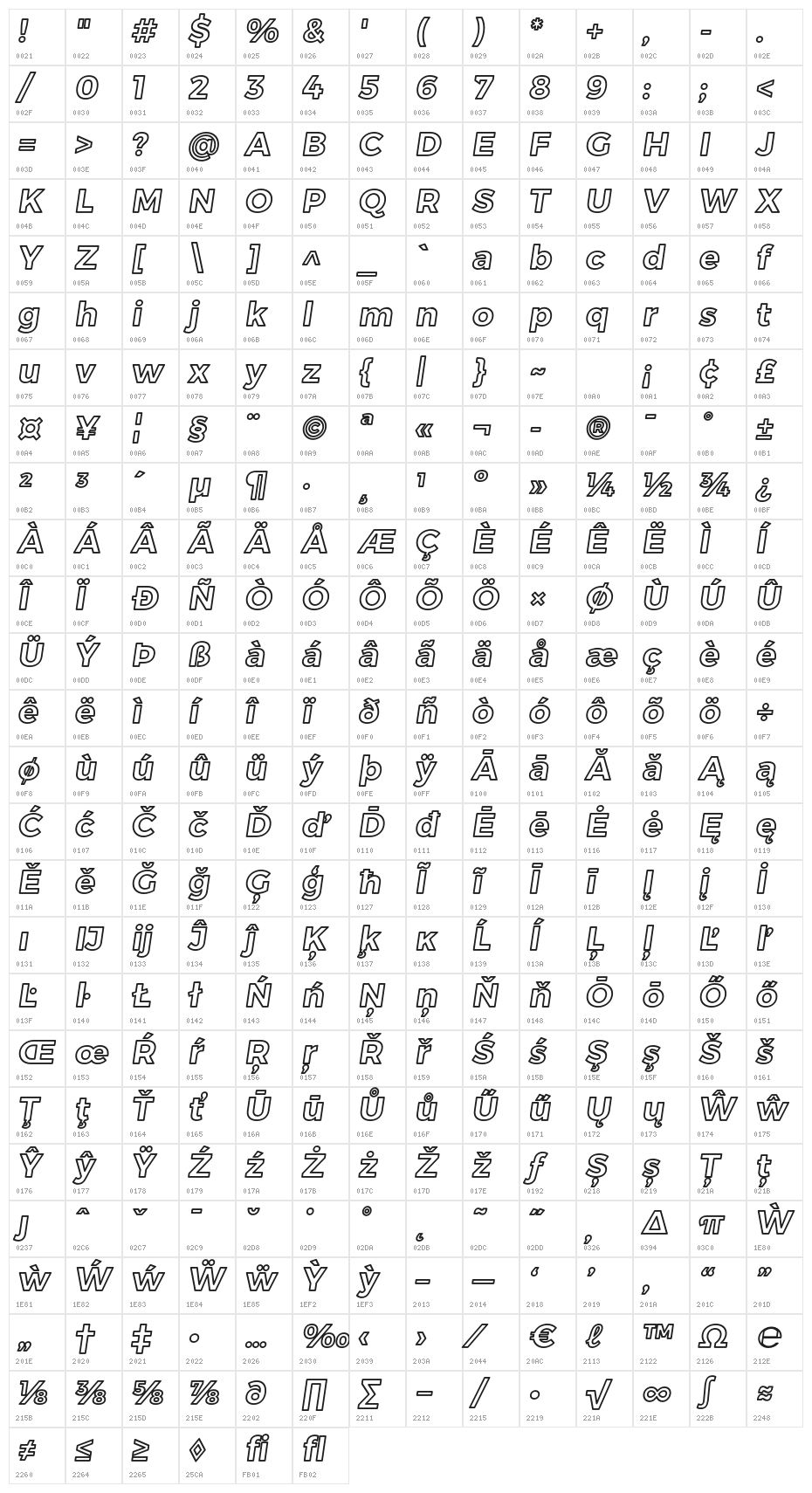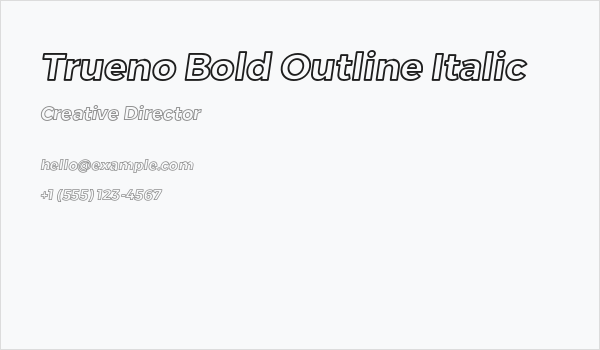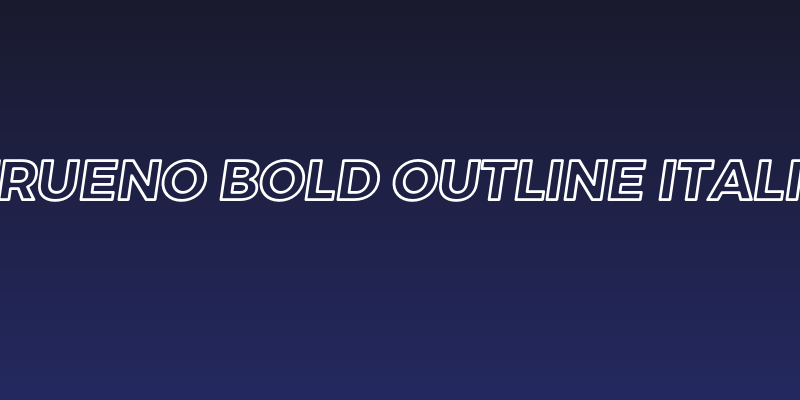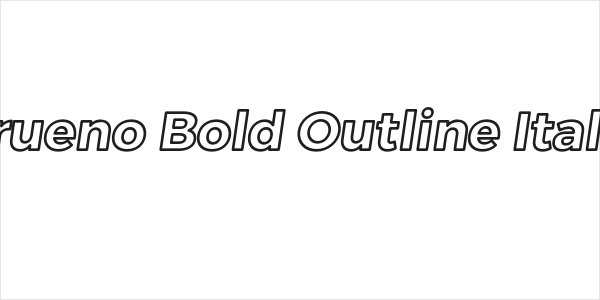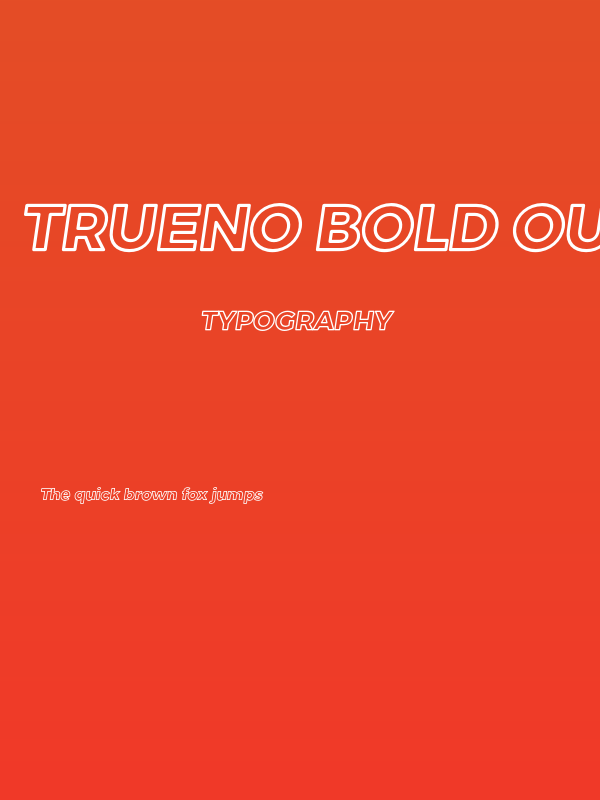
Trueno Bold Outline Italic Font
Trueno Bold Outline Italic Description
This font features a bold, outlined style with a slight italic slant, giving it a dynamic and modern appearance. The uppercase and lowercase letters are well-proportioned, maintaining a consistent stroke width throughout. The outline effect adds a layer of depth, making the characters stand out prominently. The numerals and special characters are designed with the same bold outline, ensuring uniformity across all glyphs. This font's clean lines and structured form make it versatile for various design applications, where a contemporary and impactful look is desired.
| Proposed Projects | Ideal for headlines, posters, branding, and any design project requiring a bold statement. |